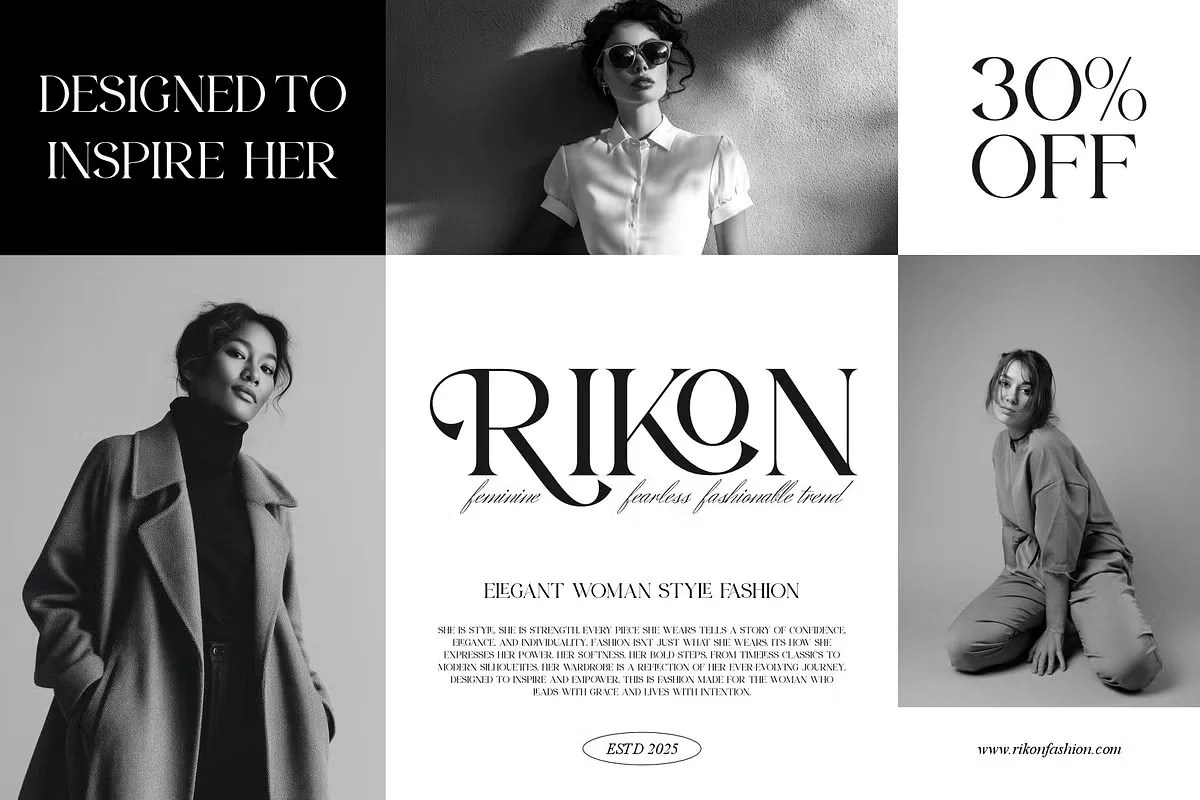
Erios by Ermedia Studio. This is a beautiful and highly readable classic serif font that brings a sense of timeless elegance to any design. Ermedia Studio crafted Erios with a deep respect for typographic tradition. However, the font includes clean, modern touches for today’s digital designers. It strikes a perfect balance between the heritage of print and the clarity needed for the screen, making it a truly versatile tool.
This font is an incredibly versatile tool for designers and communicators. Specifically, its high readability makes it ideal for setting body text in books, magazines, and long-form web articles. Readers can enjoy your content without straining their eyes. Furthermore, this classic serif font lends an air of authority and trustworthiness to branding projects. Imagine it on the letterhead of a university, a financial institution, or a heritage brand. It immediately communicates stability and sophistication.
• Elegant and classic serif style
• Designed for high readability
• Ideal for body text, editorial, and branding
• Provides a timeless and trustworthy feel
Erios